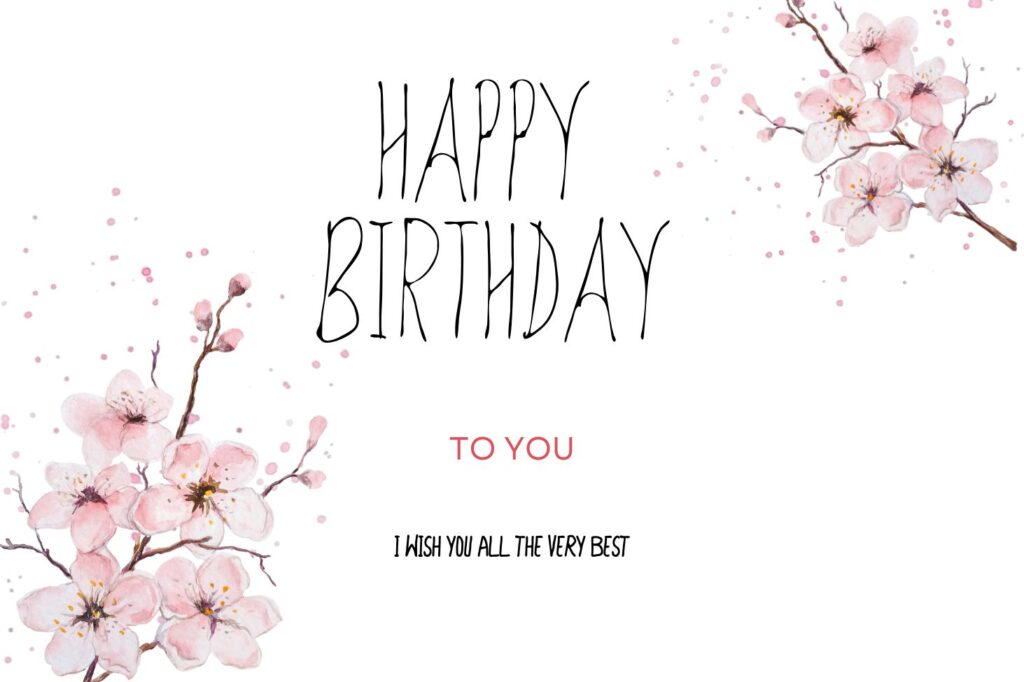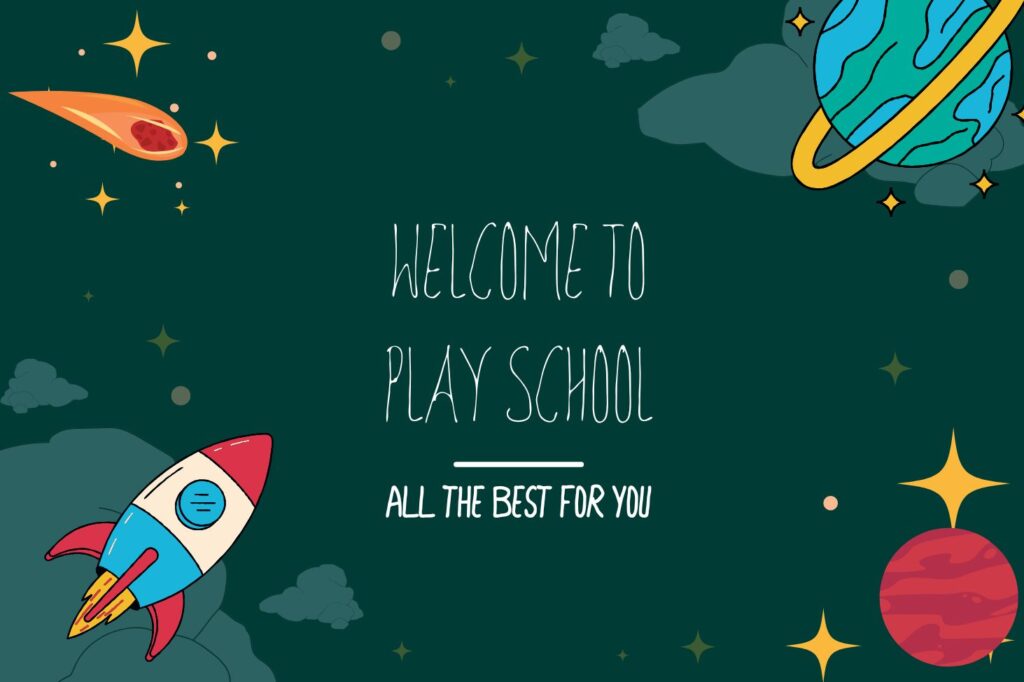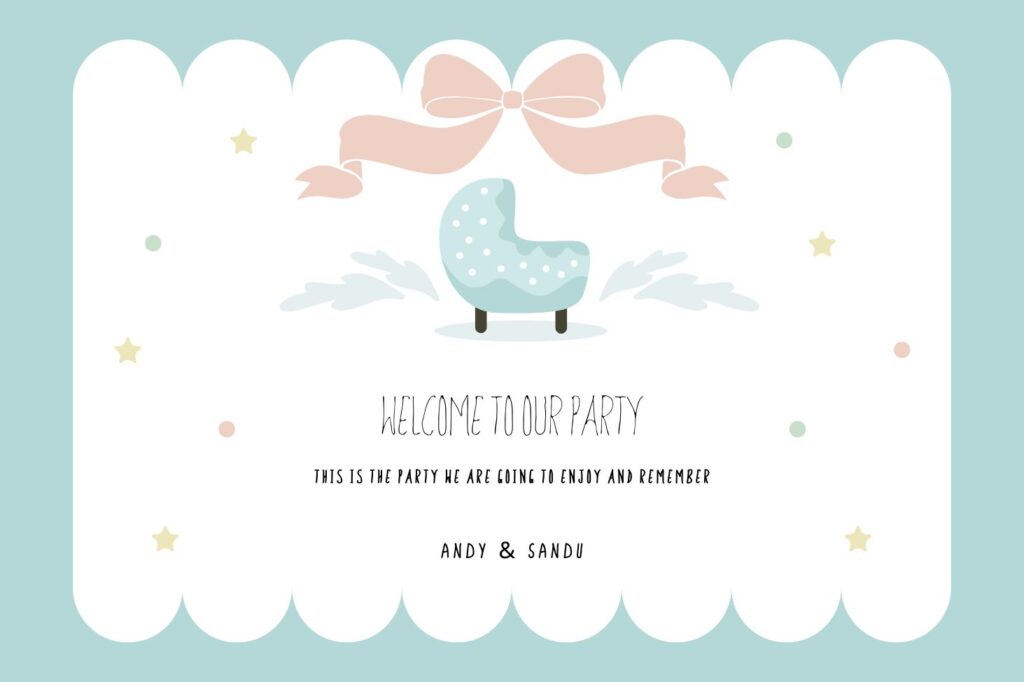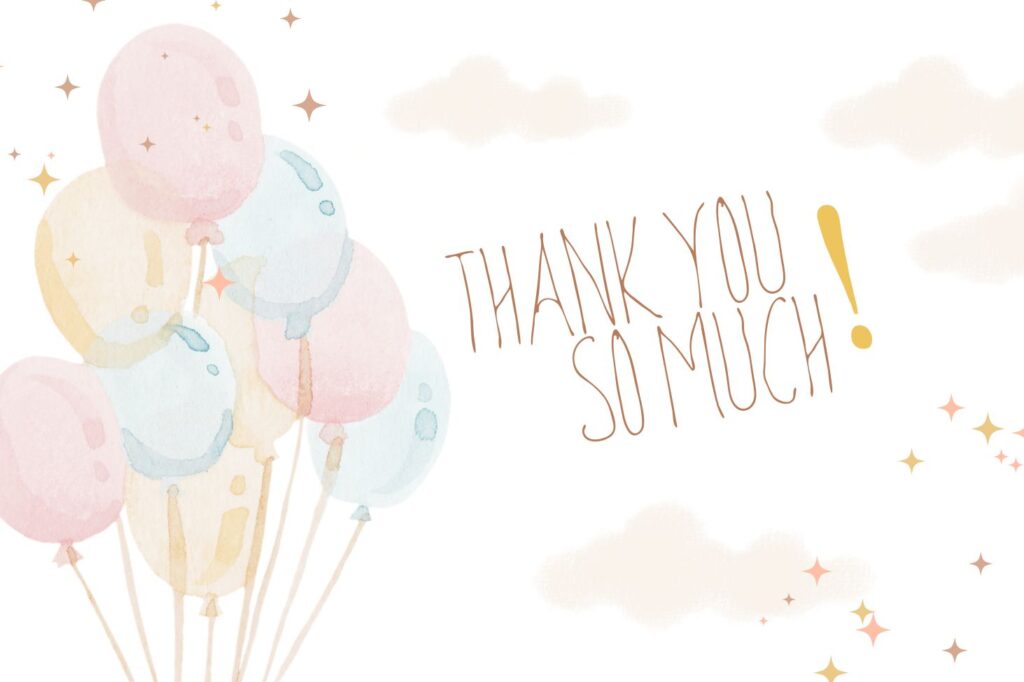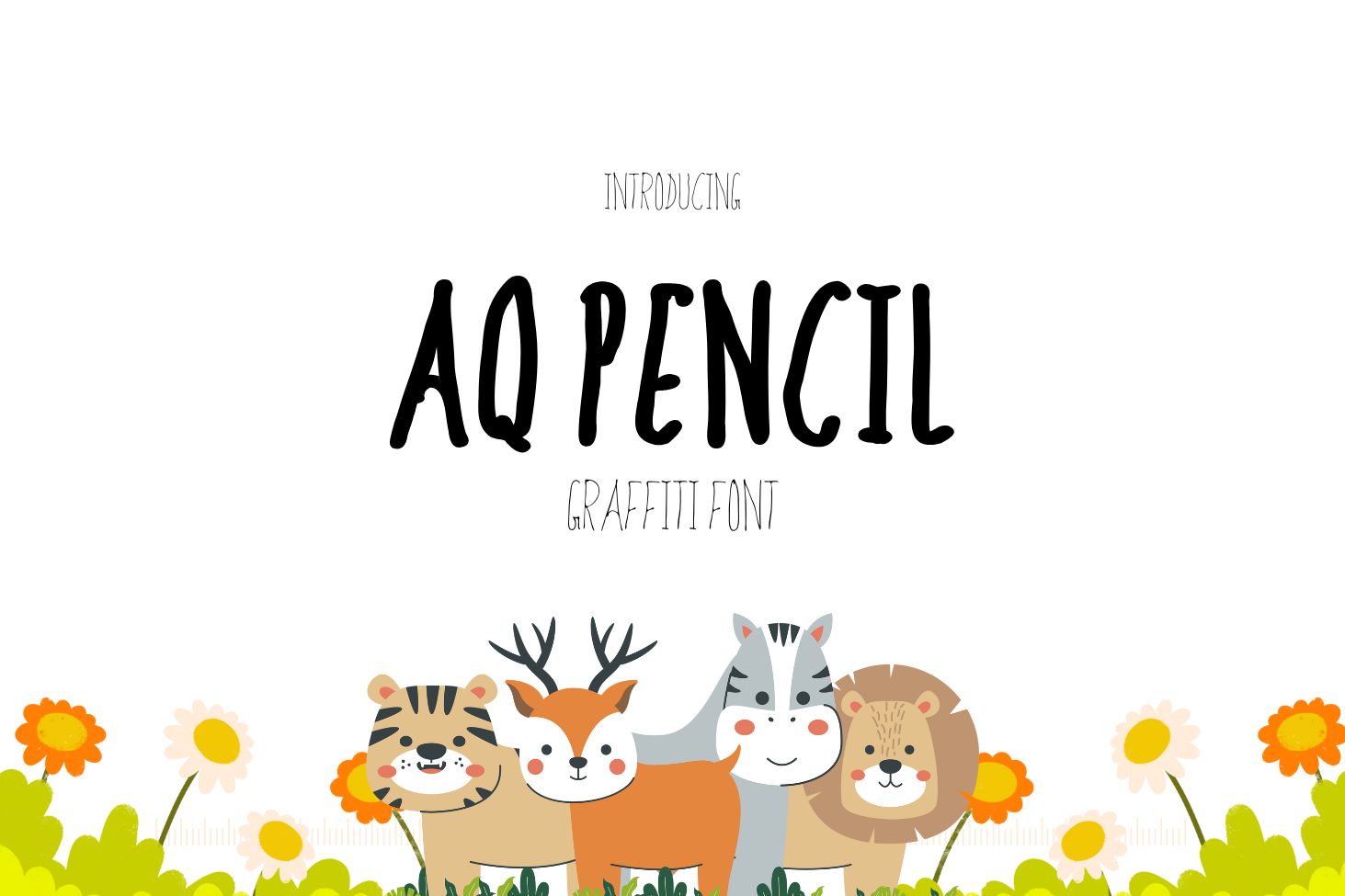
AQ Pencil Graffiti Font
Hey there! Looking for a cute and fun font to brighten up your designs? Say hello to AQ Pencil Graffiti Font! It’s a playful, hand-drawn font that’s perfect for adding a cheerful vibe to anything—whether it’s birthday cards, party invites, or even school projects. This font is all about keeping things light and creative.
With its simple strokes and friendly style, This font makes your designs feel warm and personal. You’ll love how it brings a little extra charm to your work. Whether you’re making something for kids or just want a relaxed, happy look, this font fits right in!